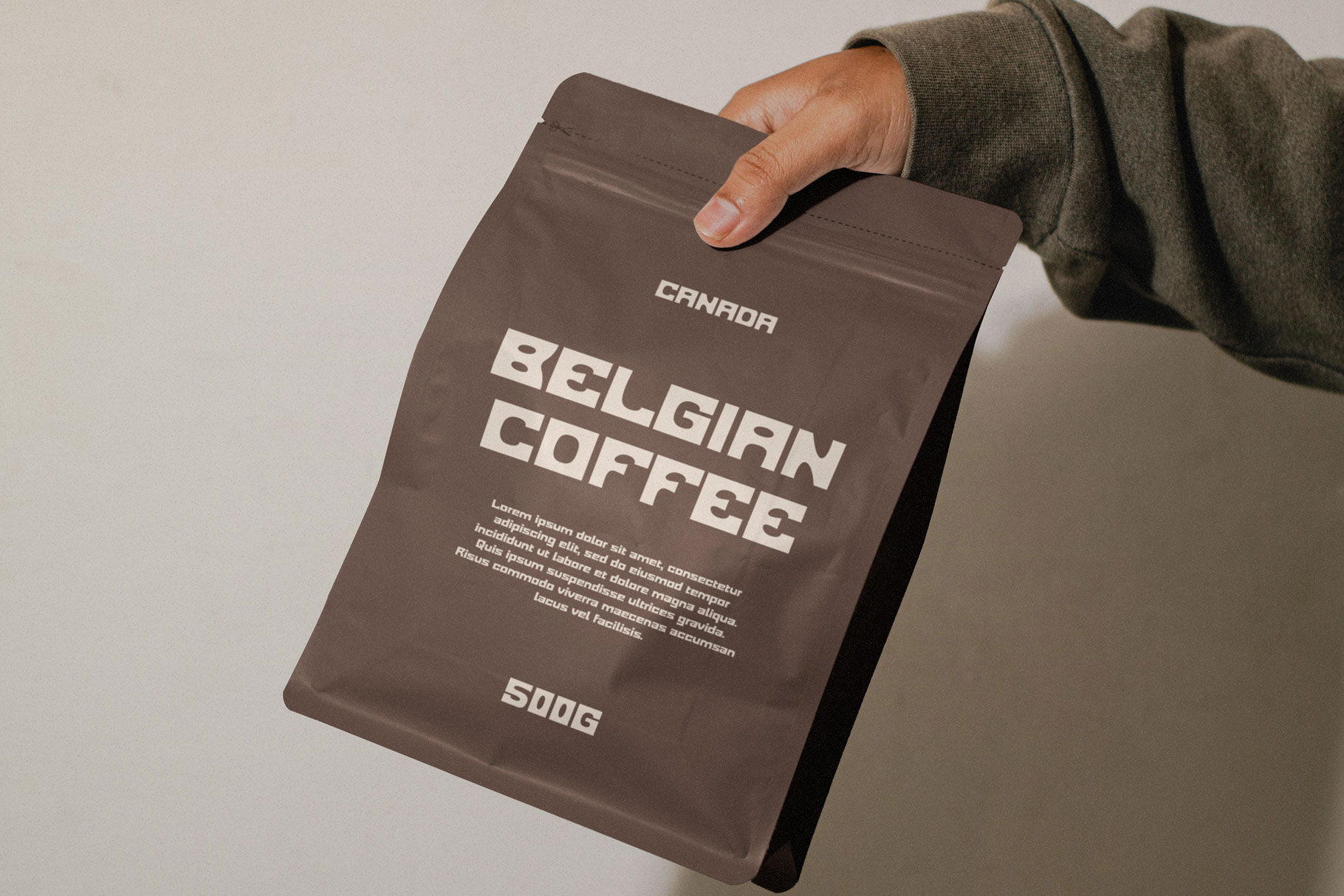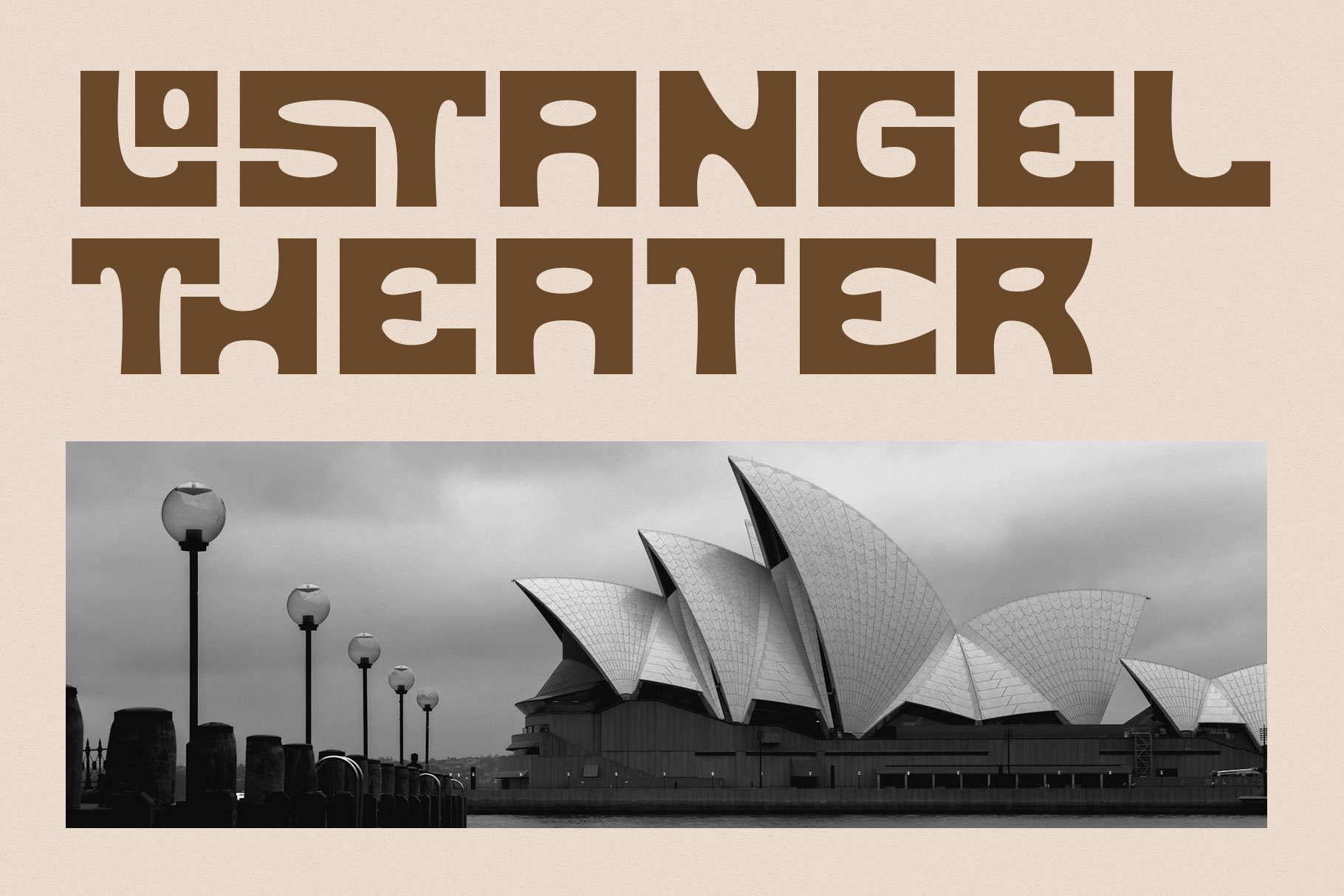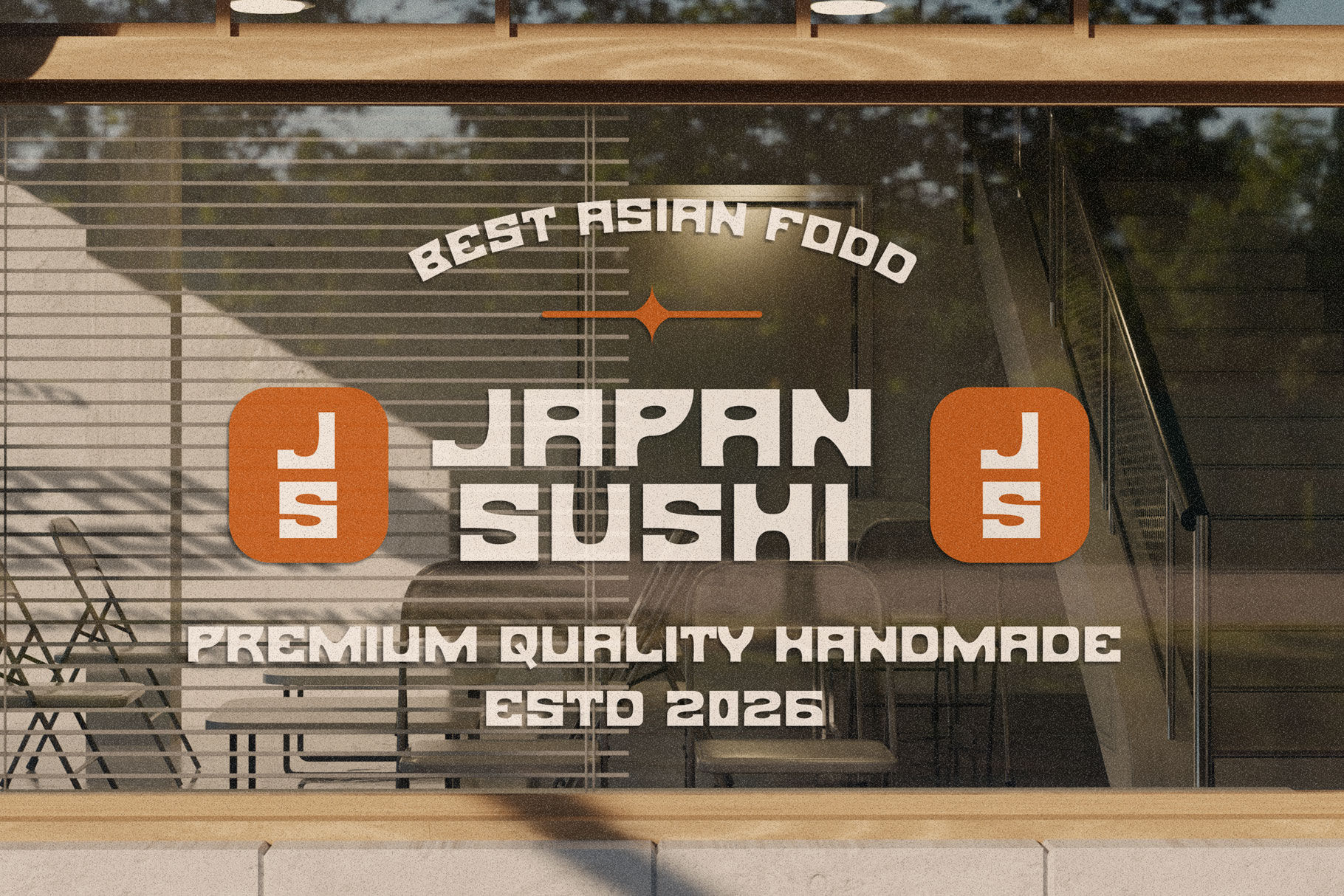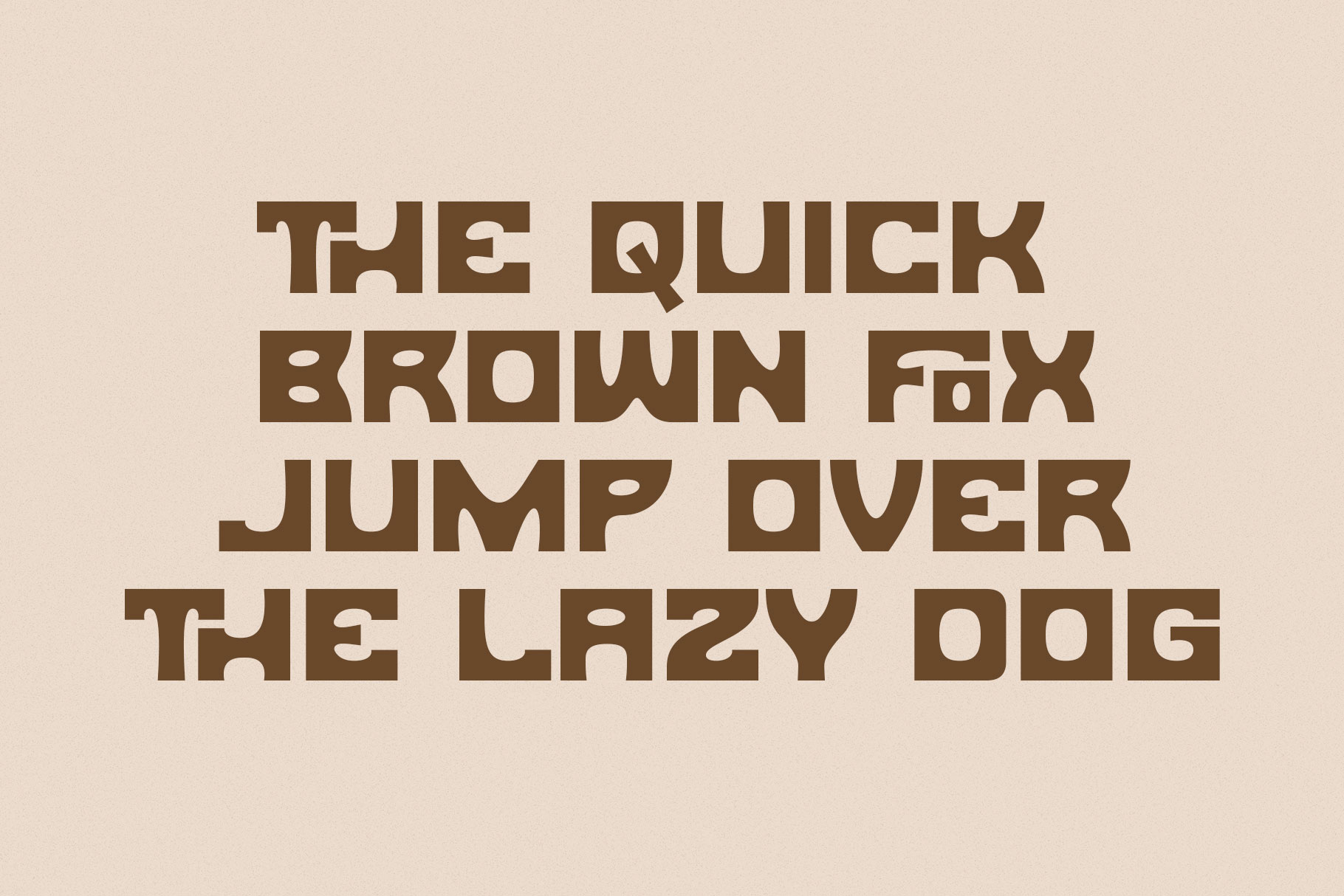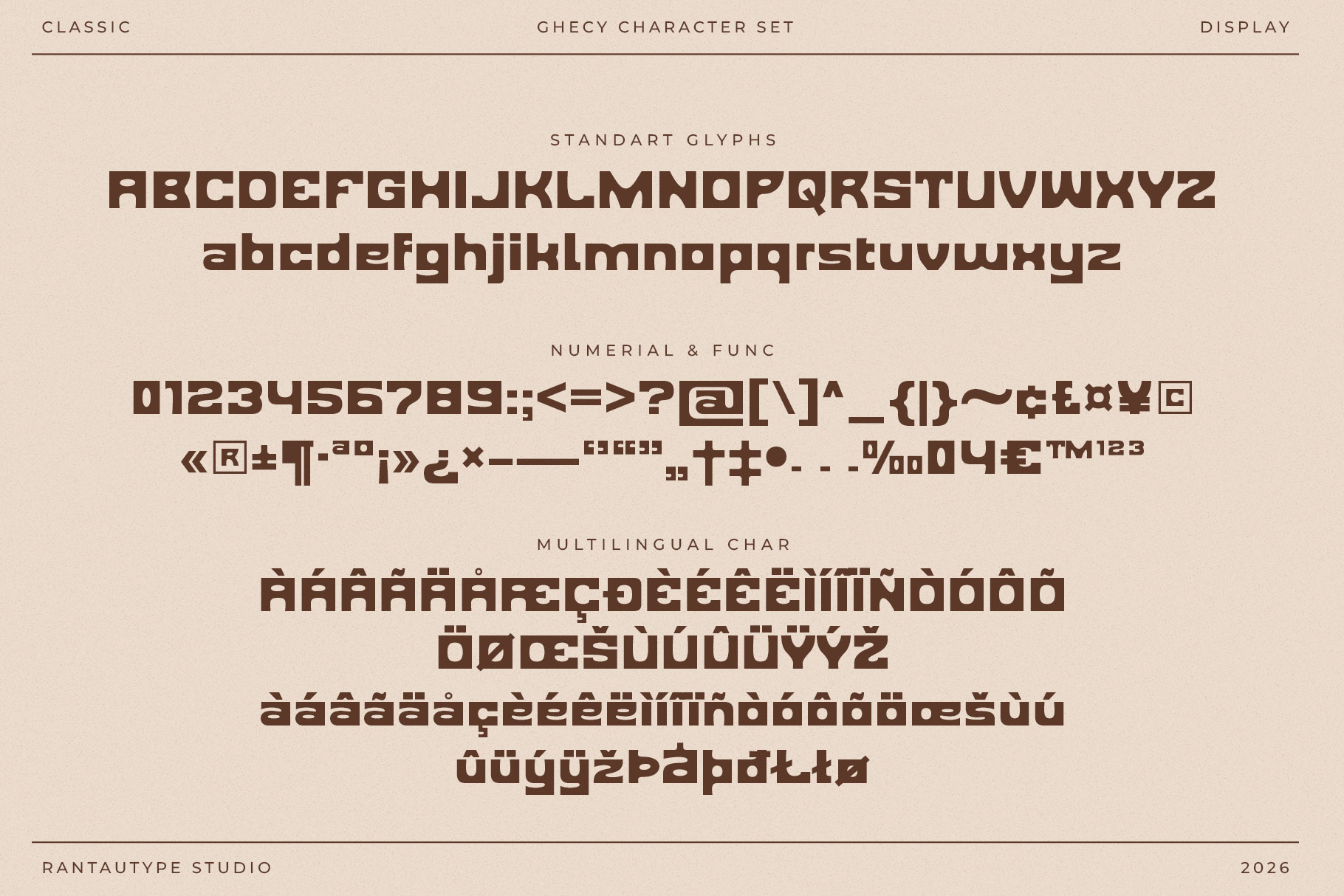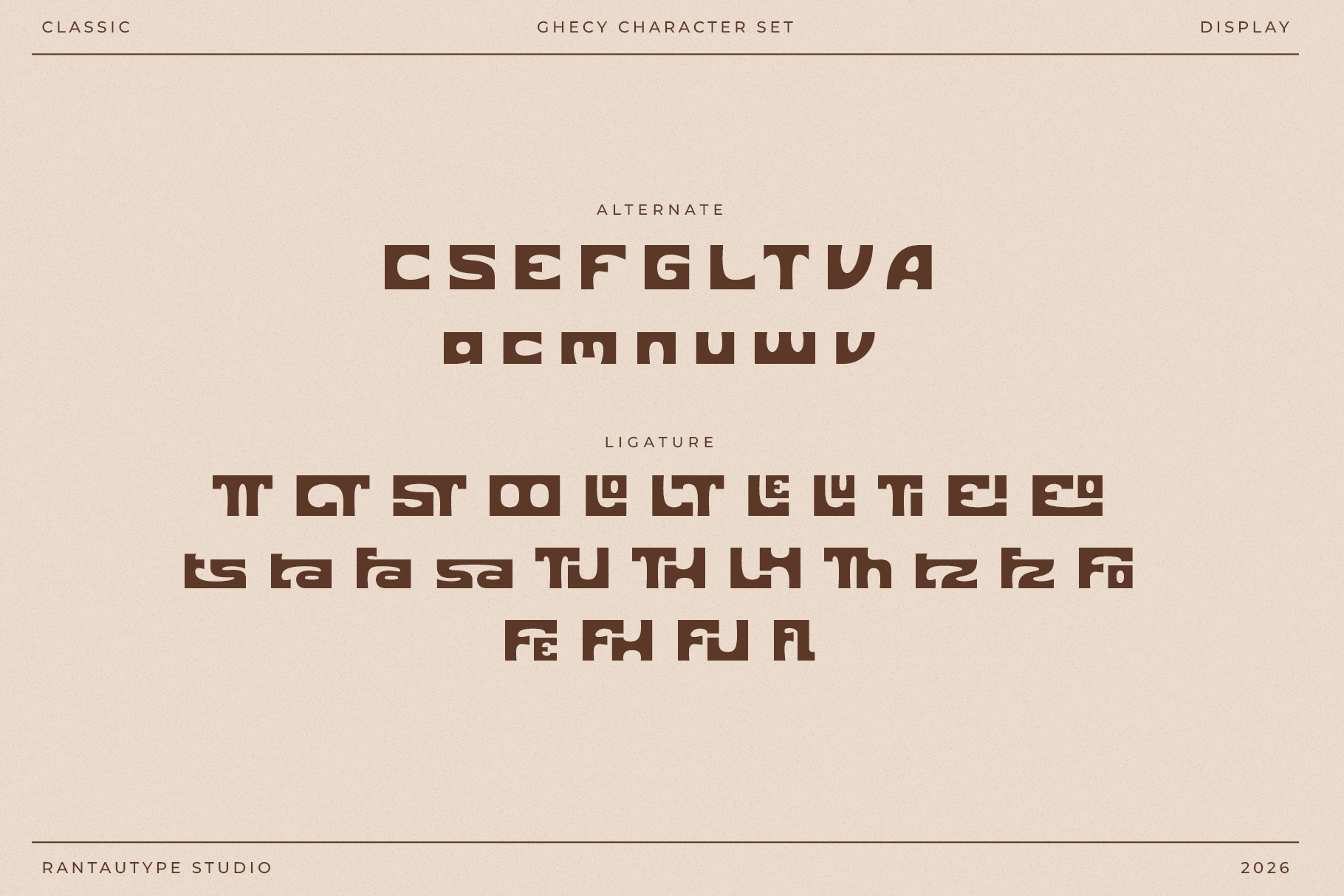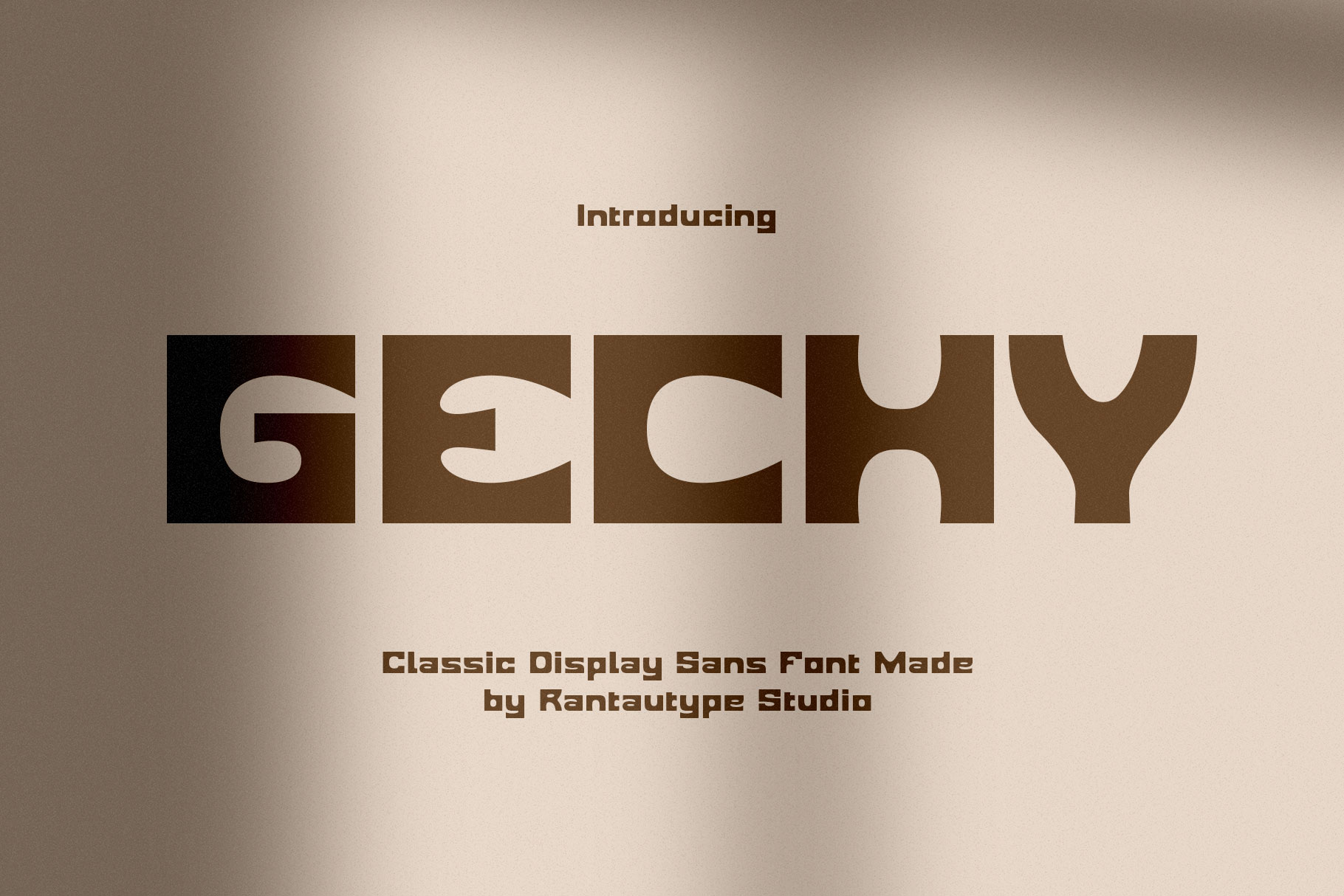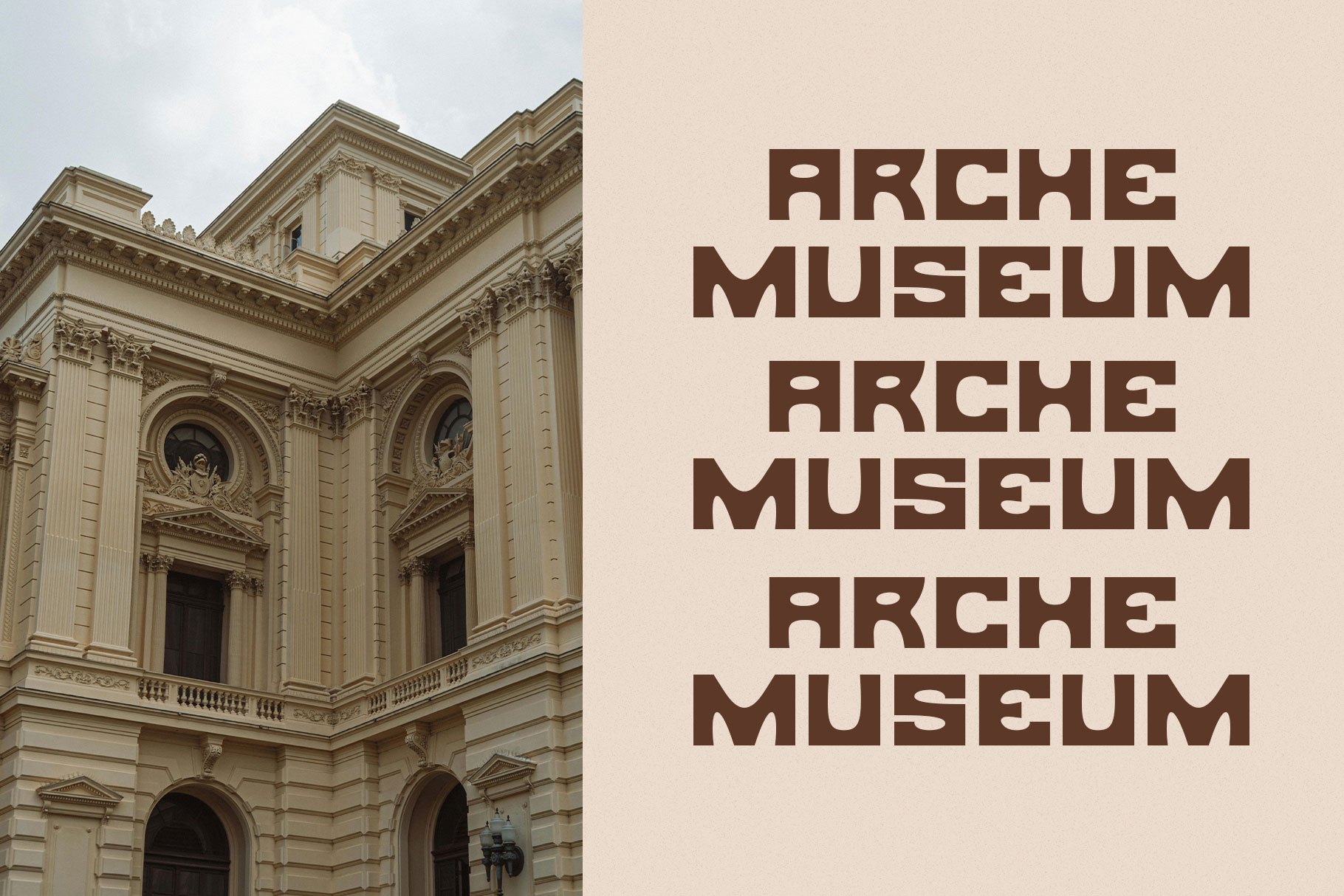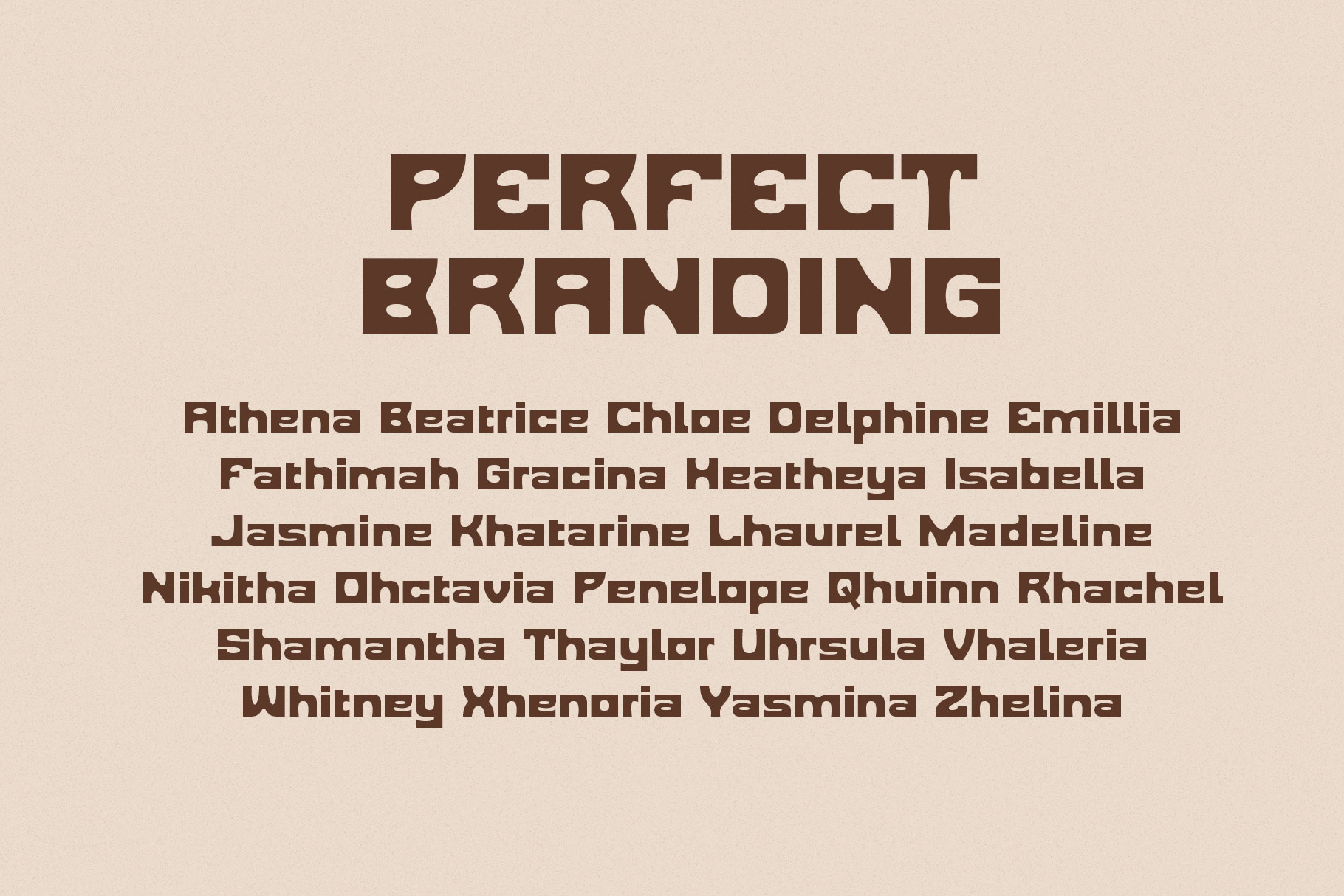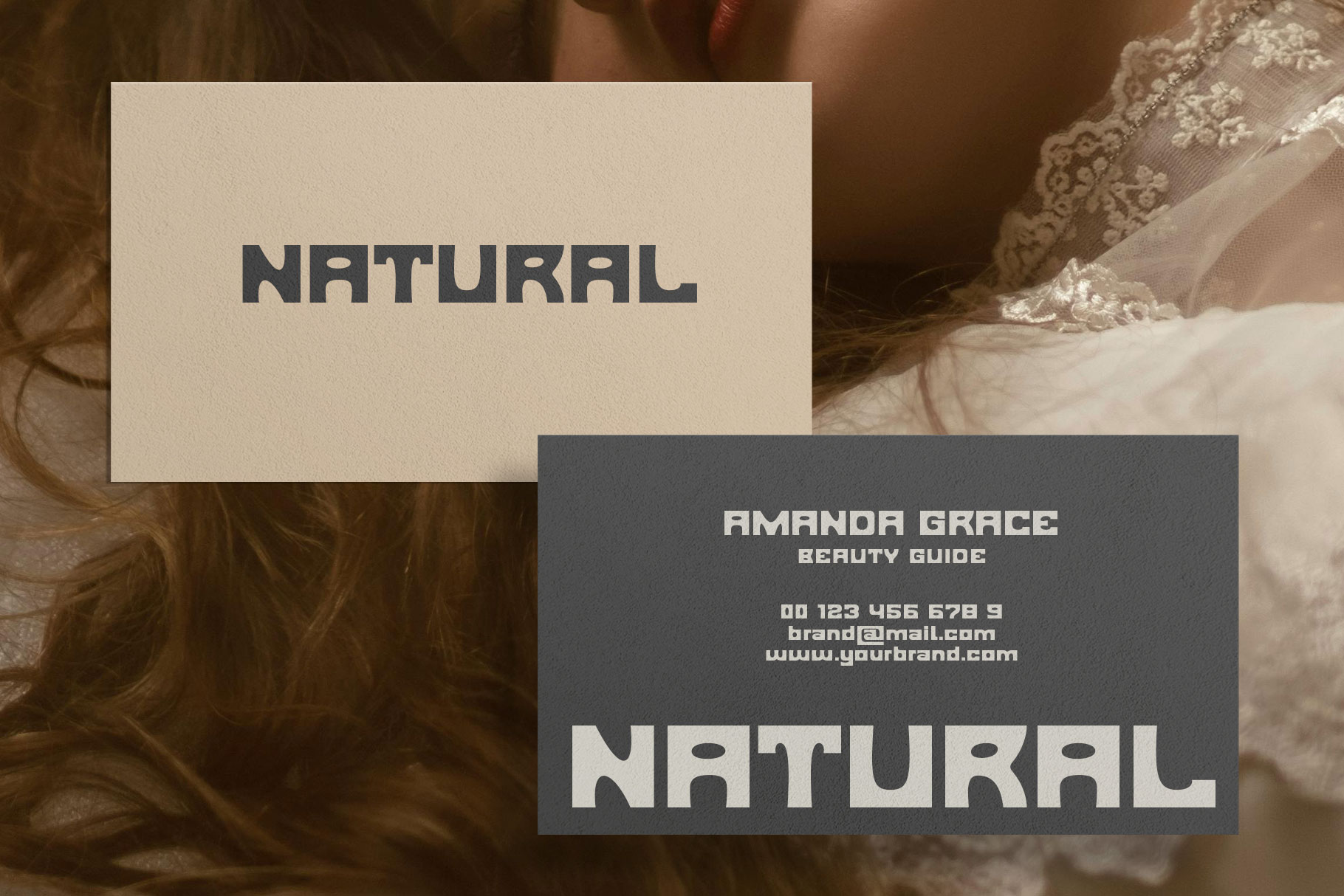
Ghecy is display sans font inspire by ancient fonts written on stone that look artistic. Ghecy bring timeless spirit of history into modern design. Each letter is shaped with chiseled edges, echoing the handcrafted marks once carved into temples, monuments, and sacred walls. Ghecy is a perfectly choice for any creative endeavor, creating, modern, lifestyle design such as logotype, title, cover, branding, invitations, wedding designs, display and magazine, social media posts, advertisements, printed quotes, product packaging, corporate brand, product designs, labels, photography, watermarks, special events and any other project with classic touch.
Ghecy Classic Display Sans Font